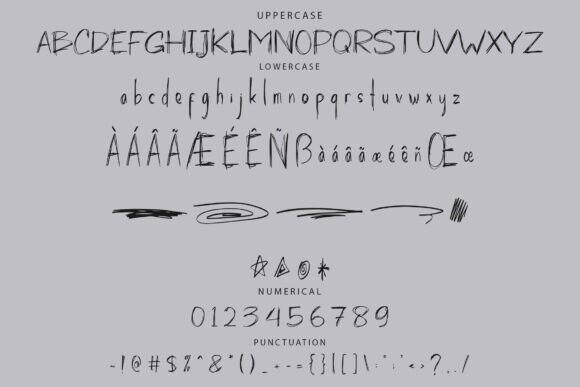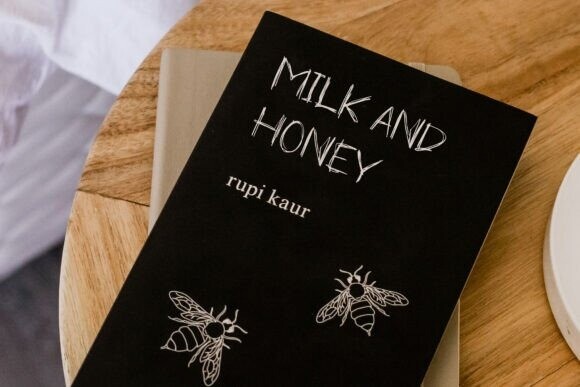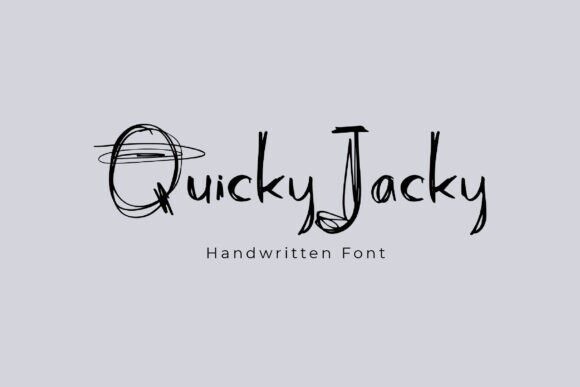
Quicky Jacky Font
Designer: dwikrisdiantoro9
Quicky Jacky Font is a bold handwriting font with a rough handbrush style, perfect for adding a raw, creative touch to your designs. Its unique character shapes enhance the visual appeal of branding, packaging, posters, and more, giving your projects an eye-catching, handcrafted feel.